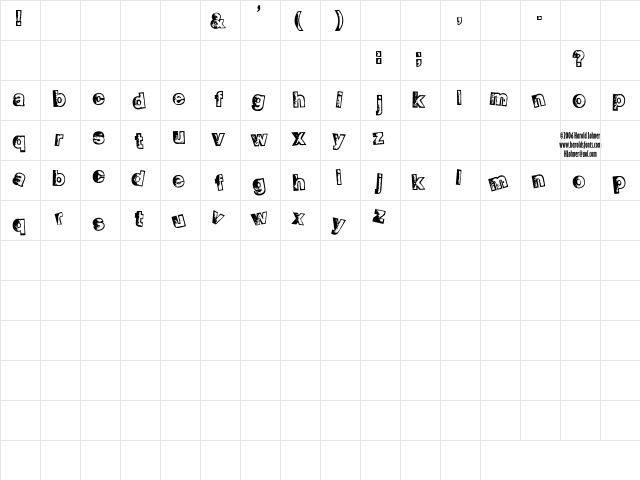
Smelvetica Outline Regular
Design Context for Smelvetica Outline Typeface
Smelvetica Outline is built around its visual character rather than neutral utility — its distinctive forms are designed to make an impression at display sizes.
Font Pairing: Pair with a clean neutral sans-serif for body copy to let Smelvetica Outline's character lead without overwhelming the composition.
Pro Tip: Treat Smelvetica Outline as the centrepiece of your typographic hierarchy. One strong heading set in a decorative face can carry an entire layout.